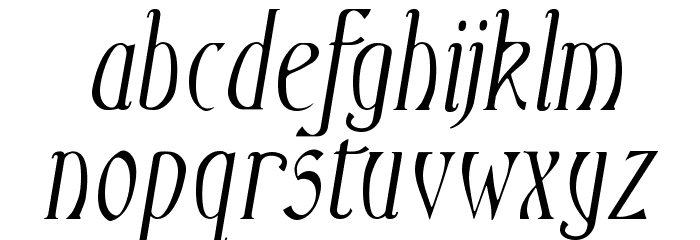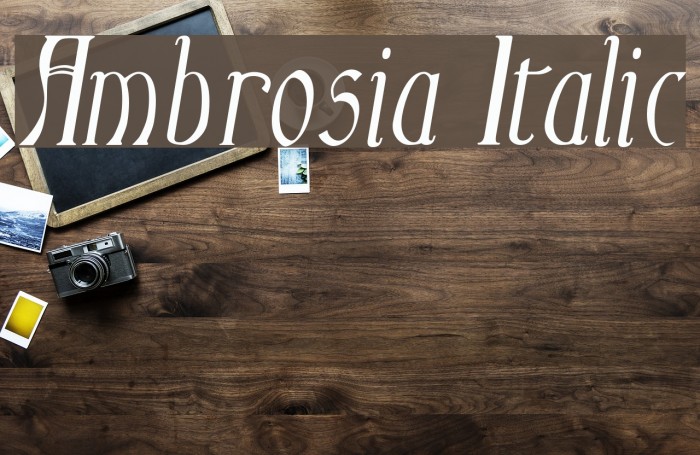
Ambrosia Italic Font
This font features an elegant and flowing design, characterized by its italicized and slightly condensed letterforms. The strokes are smooth and exhibit a medium contrast, giving it a sophisticated and artistic appearance. The uppercase letters are tall and slender, while the lowercase letters maintain a consistent style with a slight slant, enhancing the overall fluidity. The numerals are distinct and align well with the alphabetic characters, maintaining the font's cohesive look. Special characters are designed with the same attention to detail, making them suitable for decorative purposes.
An elegant, italicized font with medium contrast and flowing design.